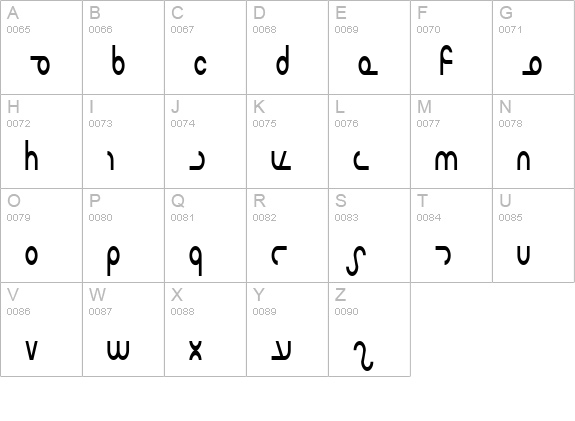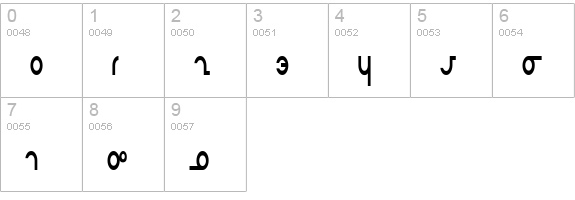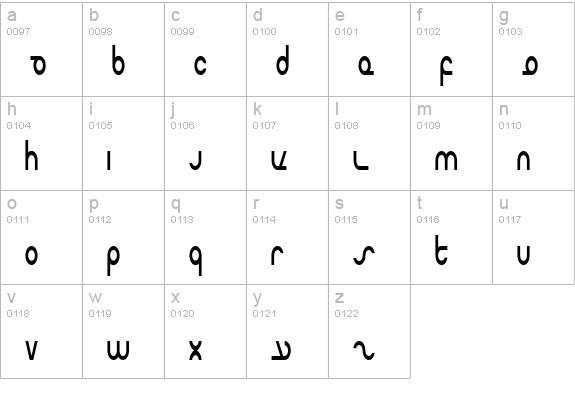
Masterdom Condensed is a distinctive, condensed-width variant in the Masterdom typeface family \xE2\x80\x94 well suited to design and typography projects.
Masterdom Condensed font is a sleek and modern typeface that exudes sophistication and elegance. With its condensed design, it is perfect for creating impactful headlines, titles, and branding materials. The clean lines and sharp angles give this font a contemporary feel, making it ideal for projects that require a touch of refinement. What sets Masterdom Condensed font apart is that it is available for free download at FontsMarket.com. This means that you can easily access and use this stylish font for your personal and commercial projects without any cost. Whether you are designing a website, creating promotional materials, or working on a branding project, Masterdom Condensed font is a versatile choice that will elevate your designs to the next level. Download it today and add a touch of sophistication to your projects.